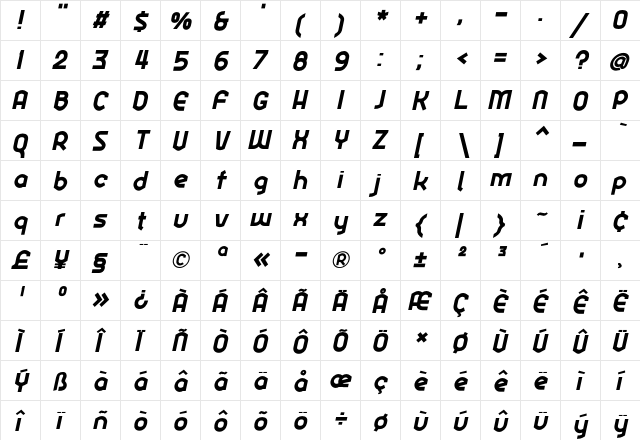
Ekela ExtraBold Italic Font Preview
Design Context for Ekela Typeface
Ekela takes a measured approach to typography — its balanced proportions and neutral character make it a reliable workhorse for both digital and print work. The dynamic lean of this cut emphasises speed and emphasis in any layout. The heavy weight commands attention and anchors typographic hierarchies.
Pro Tip: Try Ekela for annotation and caption copy alongside an upright companion — the contrast in angle creates a dynamic but ordered typographic system.